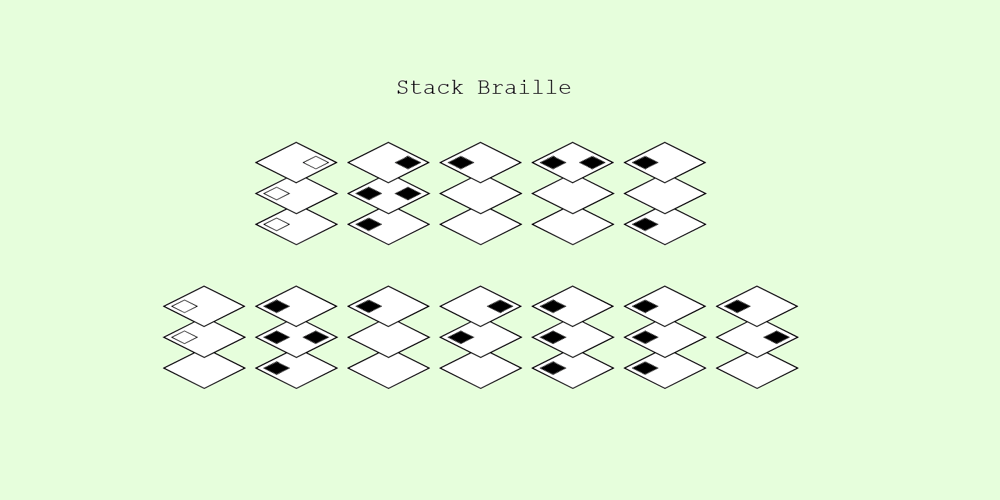
Stack Braille Font Family was designed by Michel Kern and published by Echopraxium. Stack Braille contains 1 styles and family package options. This is a monospace font for the Braille alphabet. The idea came while exploring new ways to display the regular braille glyph ( 3 rows of 2 dots ).The glyph design is inspired by “stackable multiple board” games like the famous Vulcan chess (from Star Trek series) and the Qubic (3D tic-tac-toe). The stack is made from 3 levels, each level is a 3×3 grid with 2 “playable” cells (South-West and North-East). Each cell can be either empty, filled by a white square token or a black square token. The 3D effect is obtained by means of the classic isometric perspective.Lowercase letters use black tokens, while uppercase letters use white tokens. Most special characters (e.g. digits, *$#@, []{}() etc.. ) are also provided for special usages like program source code (see poster 5).